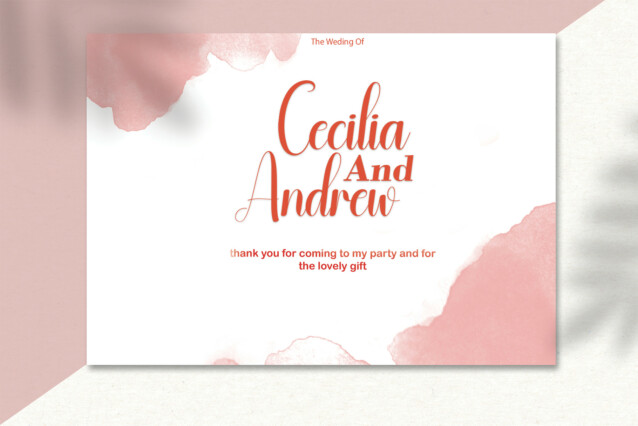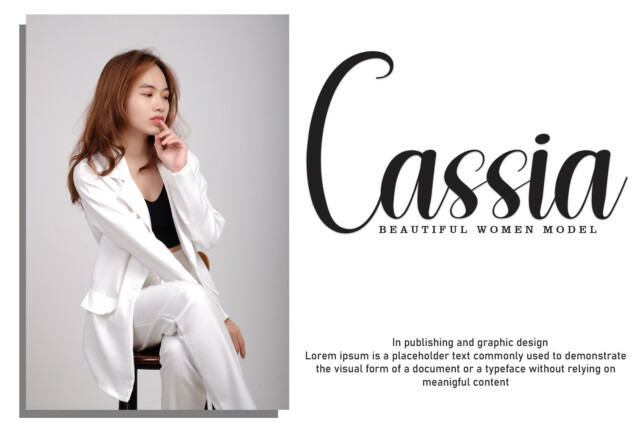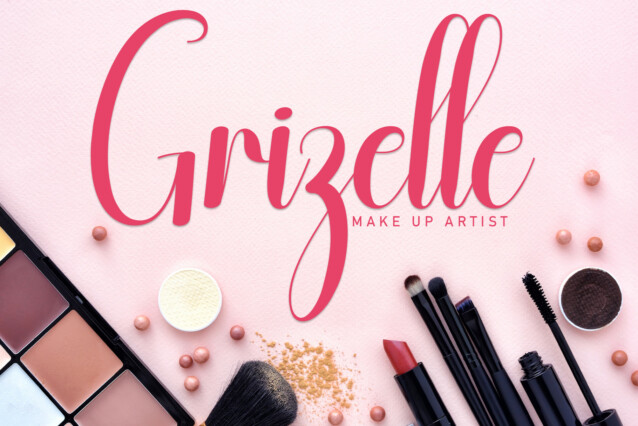
Blissful Script Font
Blissful Script Font is a sweet and friendly handwritten display font. Cute and fun, this font is ideal for writing wedding invitations, cards, or any other design that might need a playful touch!